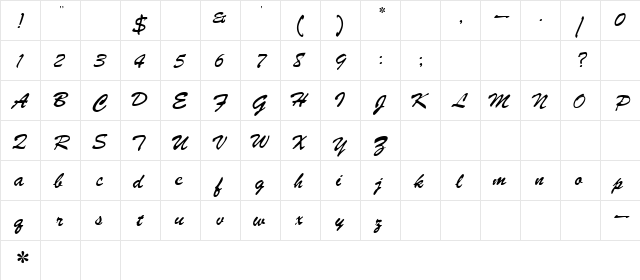
Bryn Mawr Regular
Design Context for Bryn Mawr Typeface
Bryn Mawr is a composed and adaptable typeface that performs quietly and consistently across a wide range of design contexts.